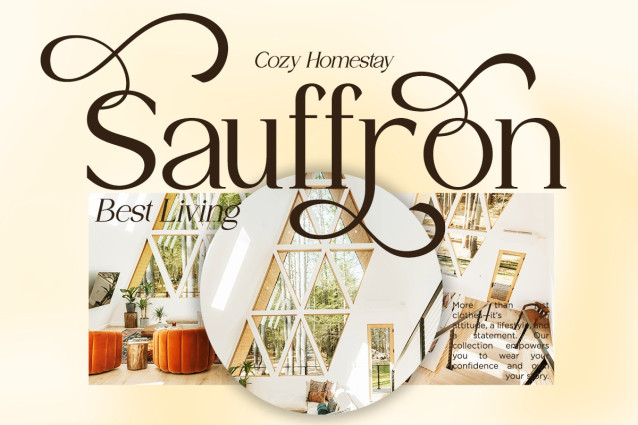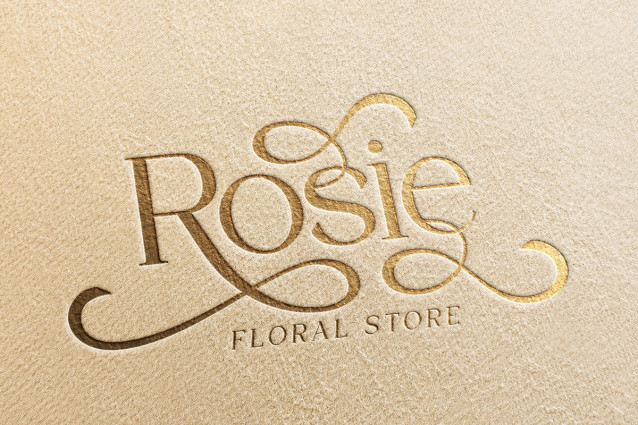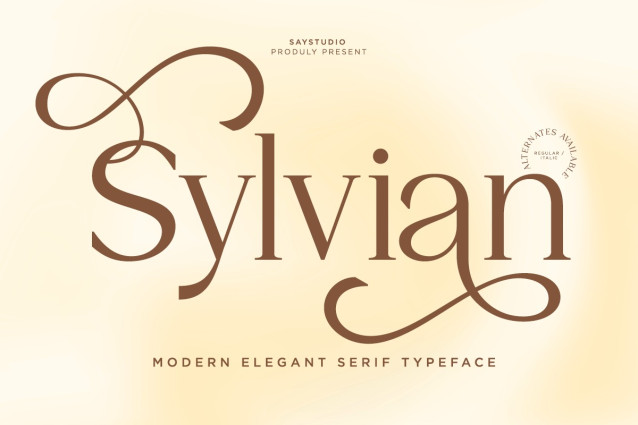
Sylvian is an elegant modern serif typeface that beautifully combines graceful curves with luxurious swashes, creating a timeless and sophisticated visual identity. Designed with refined ligatures, decorative alternates, and flowing letterforms, Sylvian brings an artistic touch to every design while maintaining exceptional readability. Its classic elegance makes it perfect for brands seeking a premium and memorable appearance.